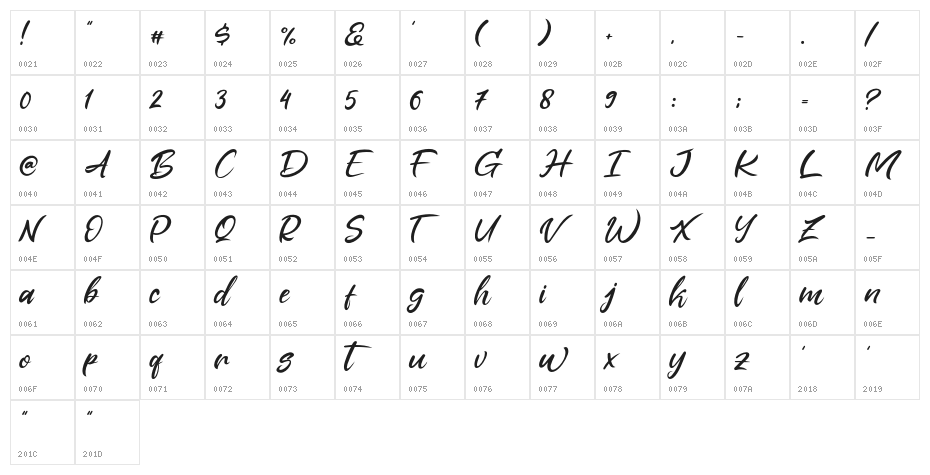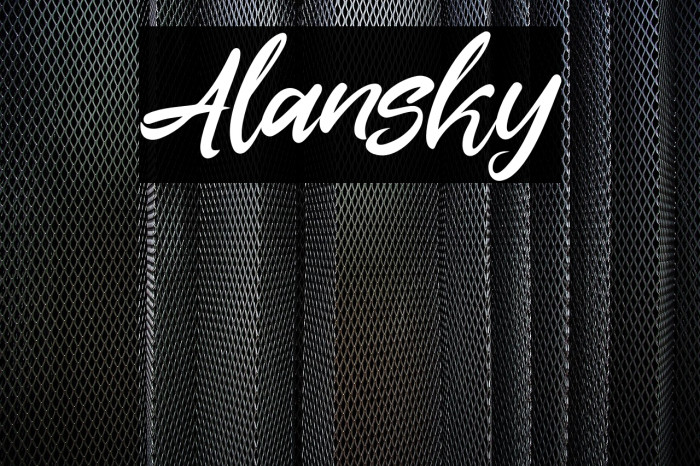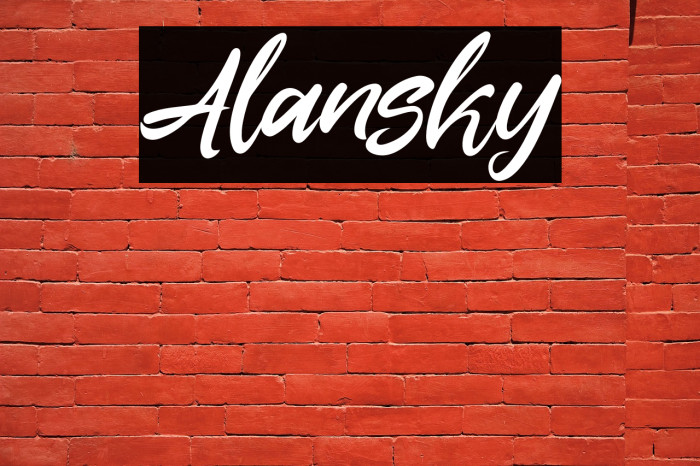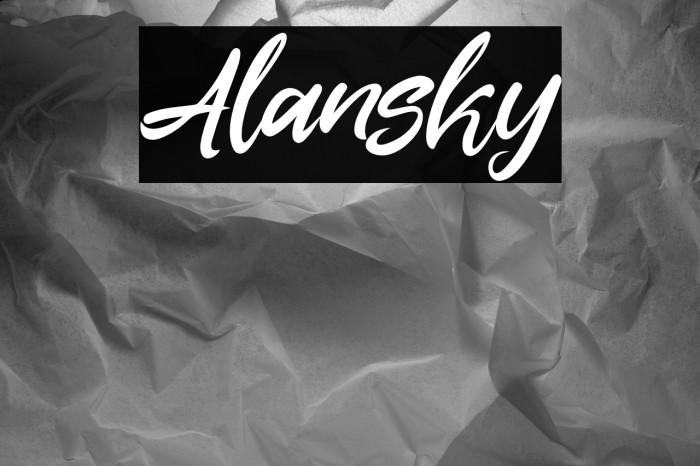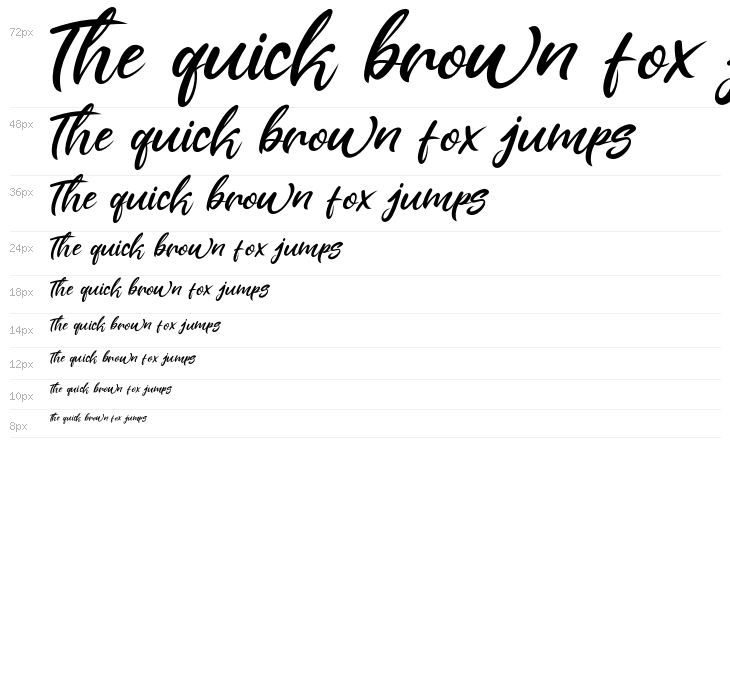
Alansky Font
Alansky Description
This font exhibits a dynamic and flowing script style, characterized by its elegant and cursive letterforms. The uppercase letters are bold and slightly slanted, giving a sense of movement and fluidity. The lowercase letters maintain a consistent flow, with smooth curves and connections between characters. The numbers are equally stylish, matching the overall aesthetic with their rounded and flowing design. Special characters are crafted with the same attention to detail, ensuring a cohesive look across all glyphs. This font is perfect for projects that require a touch of sophistication and elegance.
| Overall Style | Elegant |
| Use Case | Logos, Invitations, Branding |
| Proposed Projects | Ideal for wedding invitations, branding, logo design, and elegant stationery. |